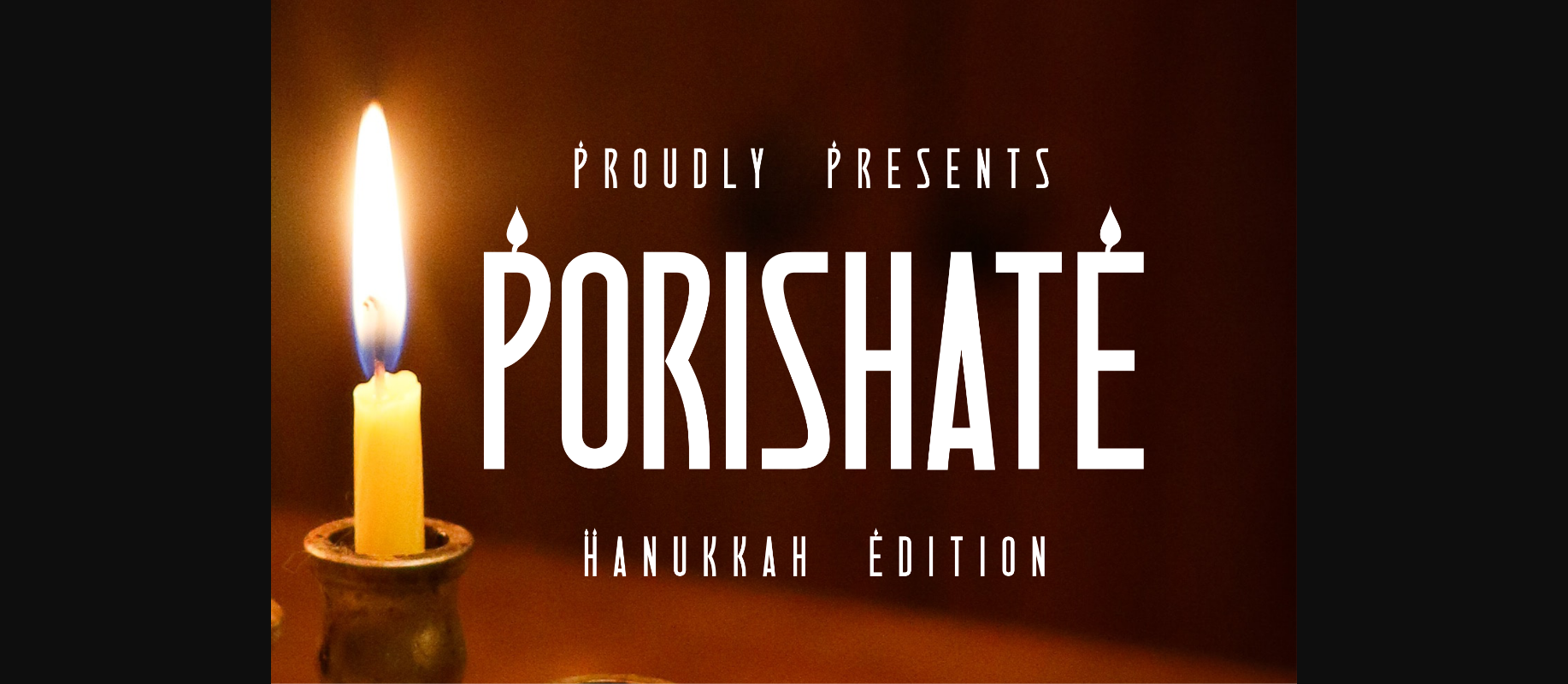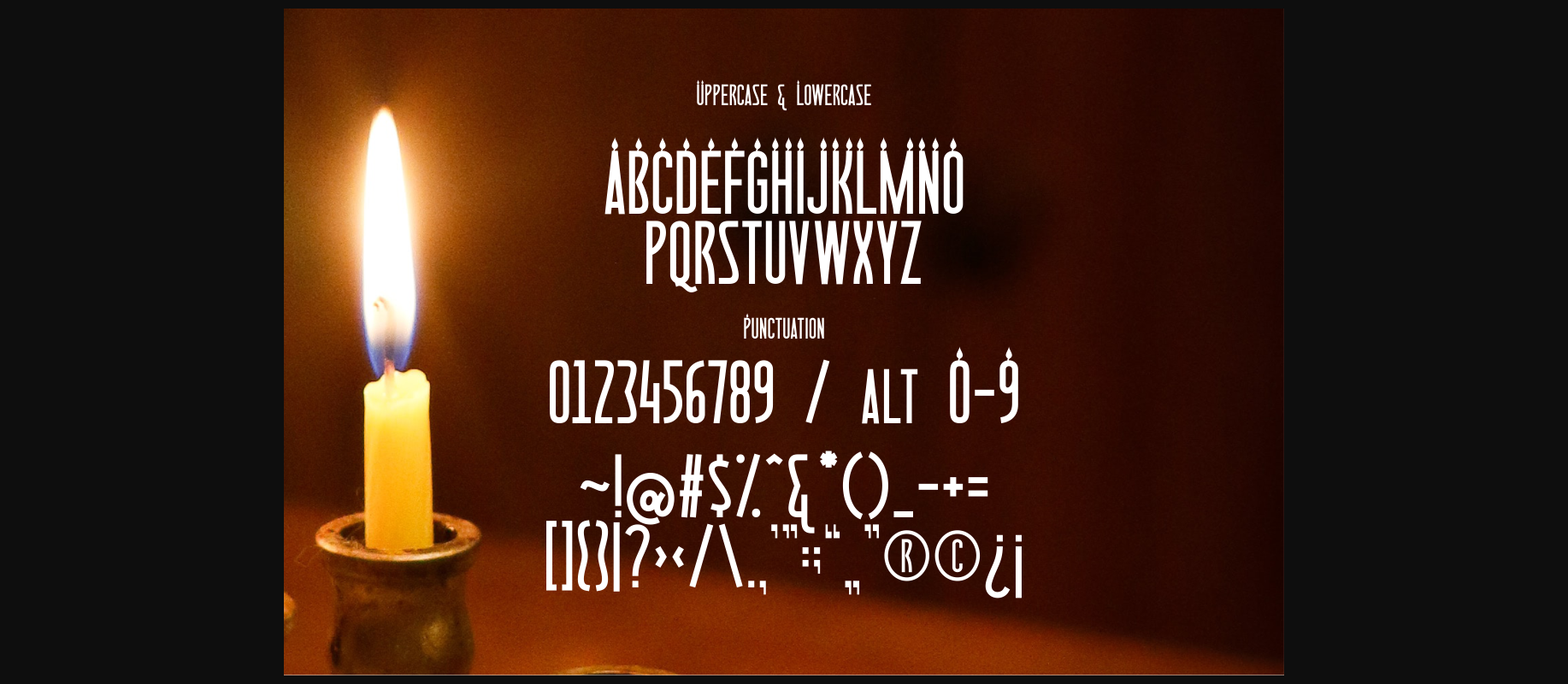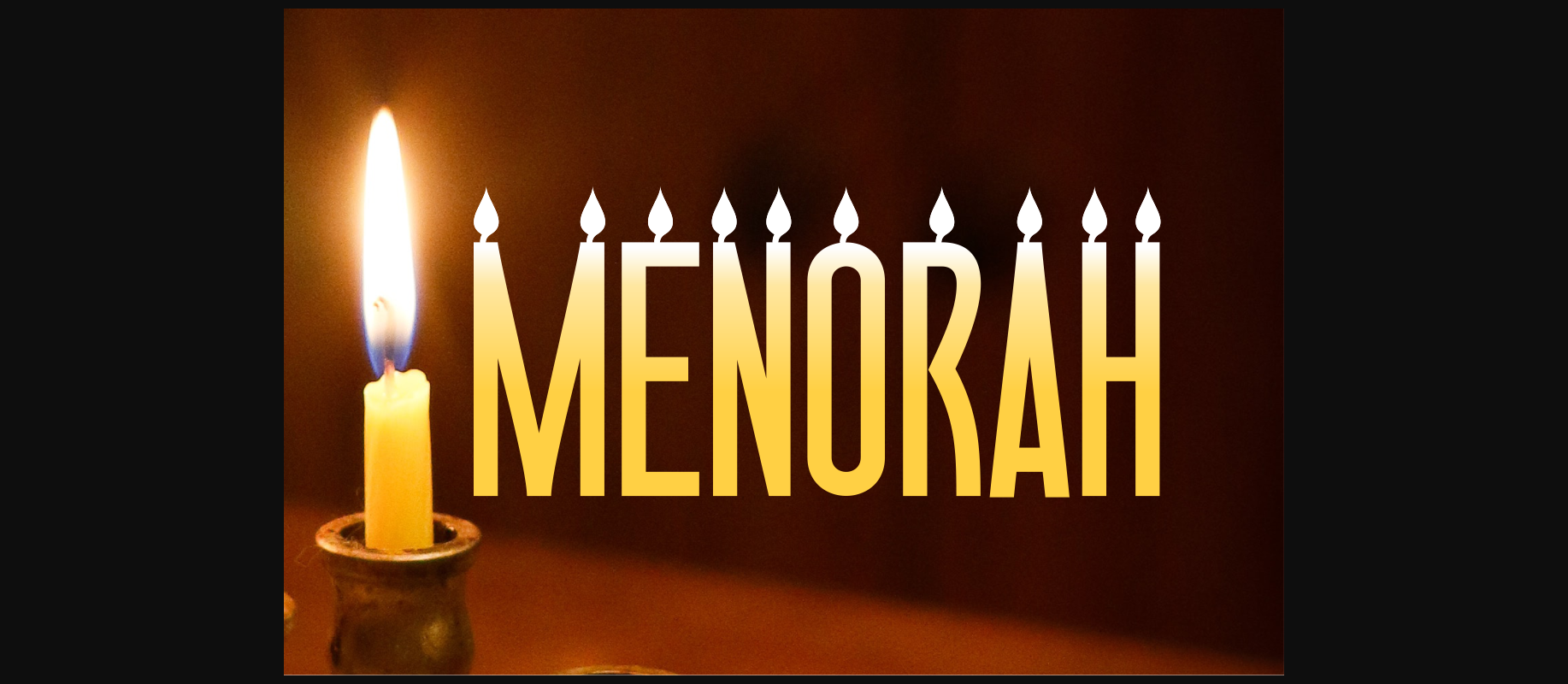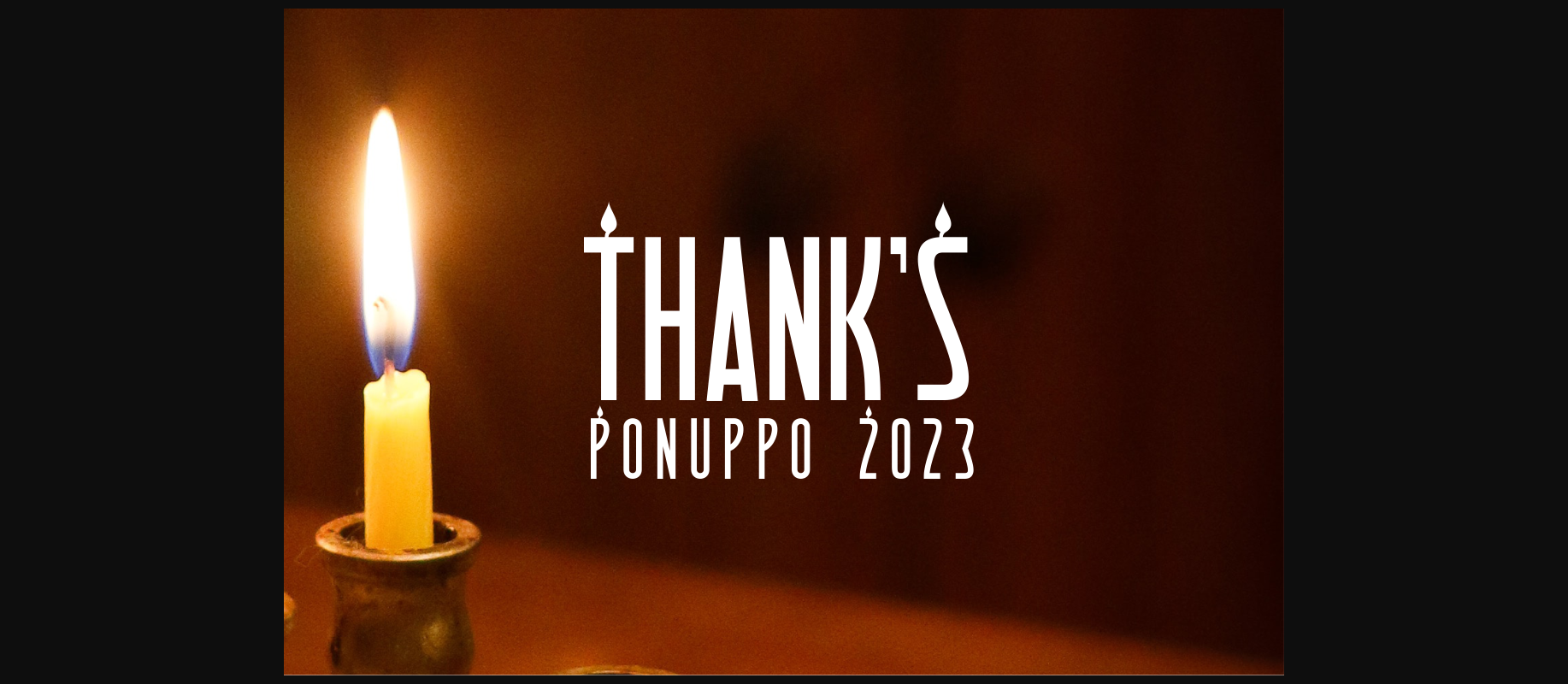
Porisathe Font
About Porisathe Font
Porisathe is a uniquely crafted Hanukkah font that adds a special touch to your holiday creations. With its festive and distinctive style, this font brings warmth and joy to your Hanukkah-themed projects. Whether you’re designing cards, banners, or invitations, Porisathe infuses a celebratory spirit with its special charm. Illuminate your Hanukkah messages with this one-of-a-kind font, making your designs truly stand out and capture the essence of the season.